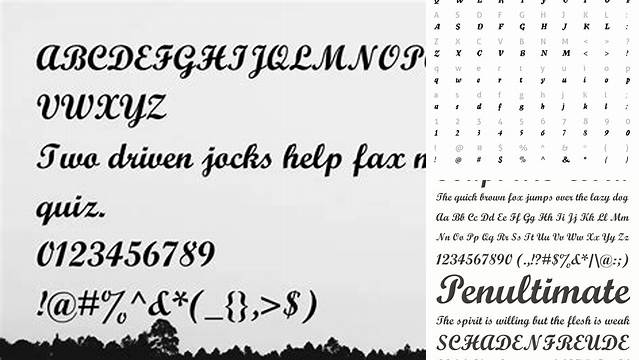
Script MT Std Bold Font: Your Guide to a Free Download and Design Excellence
Unveiling Script MT Std Bold: A Font with Character
First things first, what exactly is Script MT Std Bold? It's a member of the Script MT family, a group of fonts known for their graceful, flowing letterforms. The "Std" in the name refers to the standard version, meaning it's a widely available and well-supported font. And the "Bold"? Well, that tells you everything you need to know about its weight! Script MT Std Bold is a thick, attention-grabbing version, perfect for making your text pop. Think of it as the font equivalent of a power suit – it commands attention and exudes confidence. This font often gets confused with other script fonts like Brush Script MT, but they have their own distinct characteristics. Brush Script MT typically features a more casual and handwritten feel, while Script MT Std Bold has a more formal and elegant appearance. Understanding the nuances of each font is key to choosing the right one for your project.
Script MT Std Bold is more than just a collection of letters; it's a design tool that can transform the way your message is perceived. Its flowing strokes and dynamic curves add a touch of sophistication and personality to any design. Whether you're designing a logo, creating a website header, or crafting a beautiful invitation, this font can elevate your work. Imagine it on a wedding invitation – the boldness adds a touch of romance, while the script style keeps it elegant. Now, compare that to a flyer advertising a rock concert. The font instantly suggests class and sophistication, a stark contrast to a more edgy, impactful typeface. The versatility of Script MT Std Bold is one of its biggest strengths. It plays well with other font styles and can be used in a wide range of applications. The design possibilities are endless. Before we move forward, it's crucial to remember that using fonts legally is important. Always download fonts from trusted sources to avoid any copyright infringement issues. With the right knowledge and approach, you can harness the power of this amazing font!
When choosing a font, consider how it aligns with your overall brand and messaging. Does Script MT Std Bold fit the aesthetic you're aiming for? Does it convey the right tone? Taking into account the intended audience is critical as well. What might resonate with one demographic could very well fall flat with another. This is about more than just aesthetics; it's about communication. The right font can reinforce your message, making it more memorable and impactful. Script MT Std Bold is particularly effective when you want to convey a sense of sophistication, creativity, or a personal touch. Its versatility allows it to fit into a variety of design projects, from a modern blog to vintage-inspired branding. Remember that fonts are a powerful visual element, and choosing the right one is paramount to the success of any design project. You have to think about the overall experience and what emotions your design is supposed to invoke.
Using Script MT Std Bold in Your Designs: Tips and Tricks
Alright, you've got Script MT Std Bold (or a fantastic alternative!), and now it's time to make your designs shine. Here are some tips and tricks to get you started:
- Pair it Wisely: Script fonts, especially bold ones, can be visually dominant. Pair Script MT Std Bold with a clean, simple font for body text. Think a classic sans-serif like Arial or Helvetica. This contrast will create visual interest and make your design more readable. The contrast between the script and the simpler font prevents the design from feeling overwhelming. This balance allows each element to stand out without competing with one another. Think of it like a harmonious blend of flavors.
- Consider the Size: Since it is bold, the font's size is critical. Avoid using it for large blocks of text, as it can be tiring to read. Instead, use it for headlines, subheadings, and short, impactful phrases. This is because its thickness and elaborate style can become overwhelming if used excessively. By using it strategically for headlines and titles, you instantly grab the viewer's attention and guide them through the content. Imagine a poster with a bold headline and simple text below. This is a great example of using the font correctly.
- Spacing Matters: Pay close attention to kerning (the space between individual letters) and leading (the space between lines of text). With a script font, proper spacing is crucial for readability. Make sure the letters don't overlap or appear too cramped. Test this to see how it all works. Adjust the kerning and leading to achieve a visually appealing and readable layout. Test the font at different sizes to see how it behaves and identify where you need to make adjustments.
Final Thoughts: Unleash Your Design Potential
There you have it! Script MT Std Bold is a fantastic font that can bring elegance and style to your designs. You now know how to find it (or its alternatives) safely and legally. Remember to consider the licensing terms, experiment with different layouts, and embrace the power of bold typography. By following these tips, you'll be well on your way to creating stunning designs that grab attention and leave a lasting impression. Happy designing, guys!